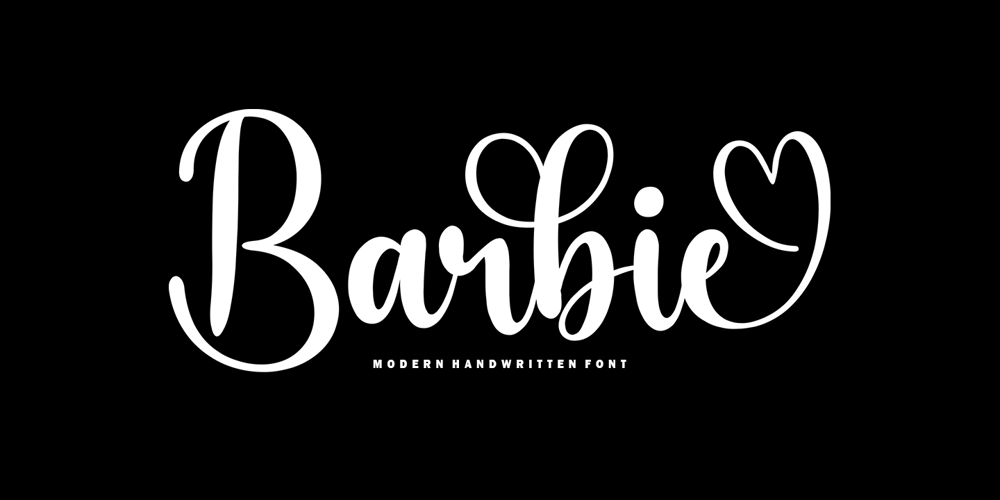
Barbie Script Font Family was designed by Faqihuddin Ilza and published by Crowntype Studio. Barbie Script contains 1 styles and family package options. Barbie Script is a script type family of four fonts. It is inspired by Lovely Fonts and has a soft and welcoming look. Barbie Script can be used for branding, packaging and wherever you need a script font that is easy to read and smooth. Barbie Script has many ties, strokes, and alternative characters that will make your designs unique and beautiful.